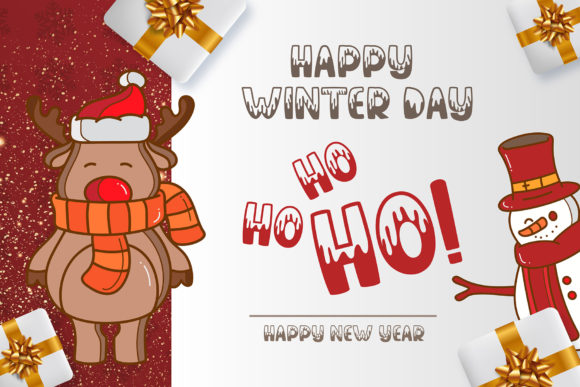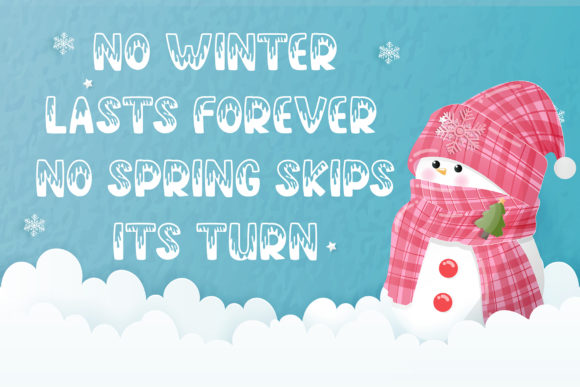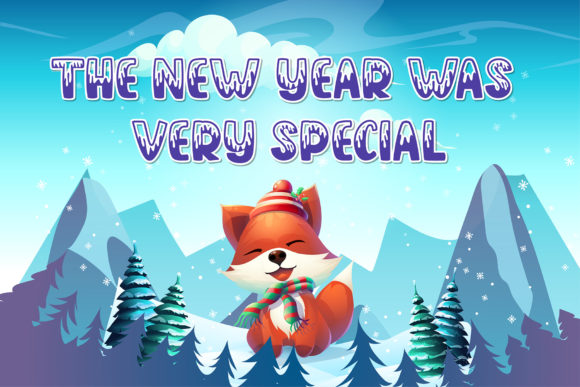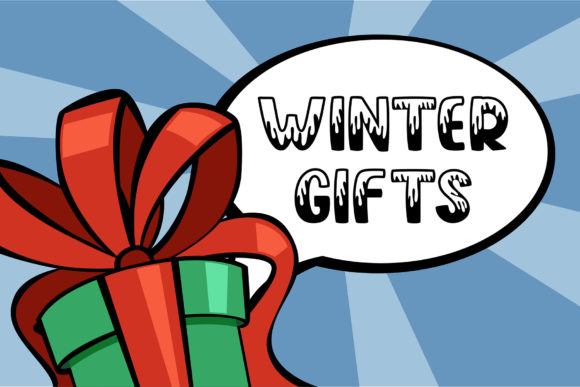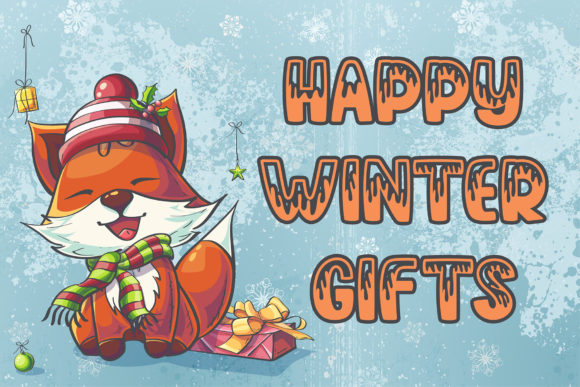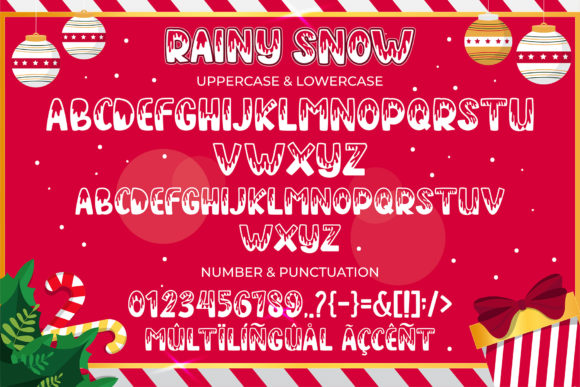
Introduction to Rainy Snow Font Font
Fonts play a crucial role in design, and the Rainy Snow Font font is a typeface that brings both character and versatility to any project. Whether you’re working on a branding project, a website, or a print design, the Rainy Snow Font font offers a unique style that can elevate your work.
Rainy Snow is a bold and chunky lettered display font.
It has a strong personality and as a result, it will complement any design idea that you wish to put forth .
Key Features of Rainy Snow Font Font
Why Choose Rainy Snow Font Font?
The Rainy Snow Font font is more than just a typeface – it’s a design tool that helps you communicate your message with style and clarity. Its unique character set and versatile design make it suitable for a wide range of applications, from elegant invitations to bold headlines.
With its carefully crafted letterforms and balanced proportions, the Rainy Snow Font font ensures readability and visual appeal across all mediums.
What makes Rainy Snow Font font special?
The Rainy Snow Font font stands out with its unique design, exceptional readability, and versatility across various design applications.